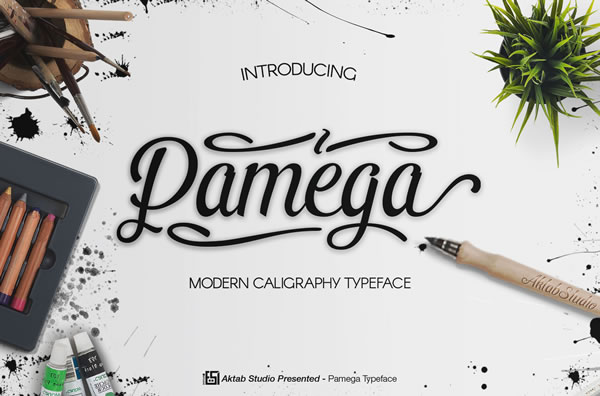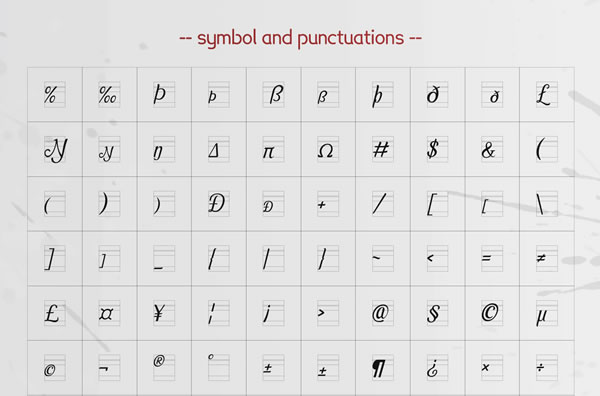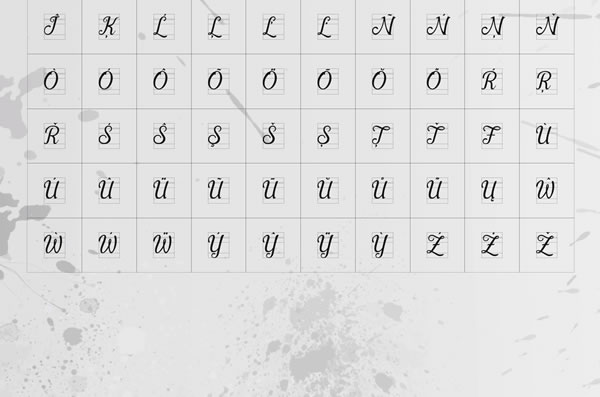
About Pamega Script Font
Pamega Script is a modern hand lettered calligraphy font.
The Pamega Script font features over 2300 glyphs. The Pamega font is extremely suitable for creating beautiful wedding invites, vinyl decall, greeting cards, shirt & apparel design, logos and much more. The font is suitable for digital and print.
This font features:
Uppercase and Lowercase characters
Numeral & Punctuation
Stylistic Sets 1 – 18
Stylistic Alternates and Contextual Alternates
International Glyphs Support (for all stylistic sets)
Standard Ligatures and Discretionary Ligatures
Fractions
Initial and Terminal Forms
Swashes
Smallcaps Numeral